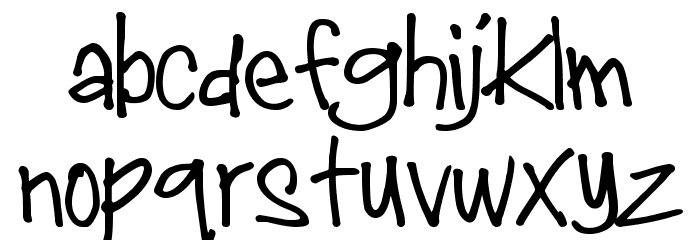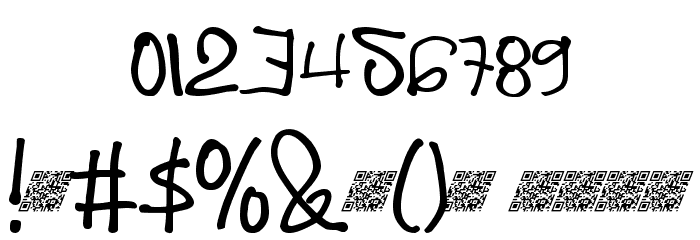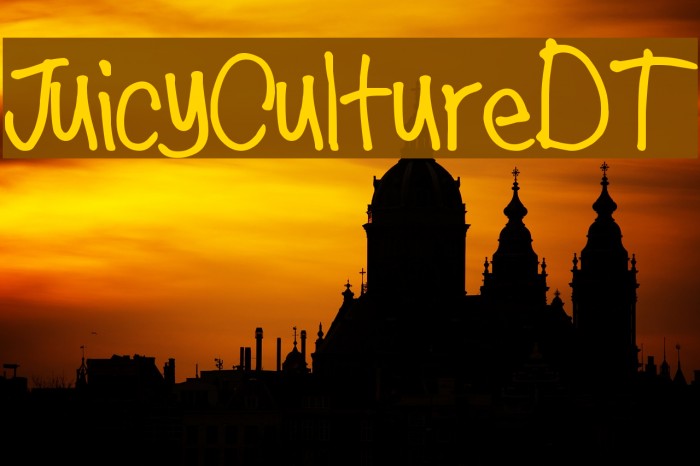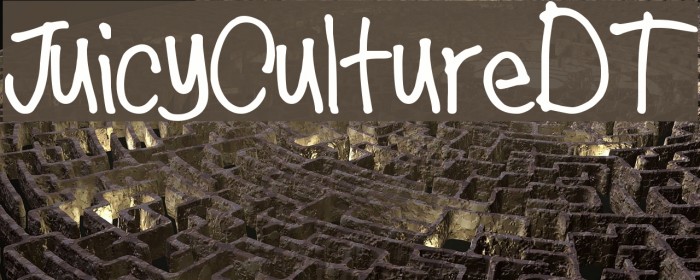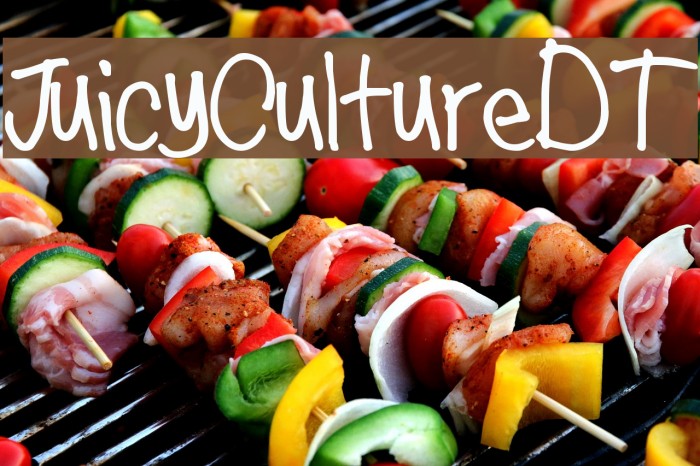
JuicyCultureDT Font
This font exudes a playful and casual vibe, characterized by its handwritten style. The letters are slightly slanted, giving them a dynamic and energetic appearance. The strokes are uneven, adding to the informal and relaxed feel. The uppercase and lowercase letters maintain a consistent style, with rounded edges and a slightly exaggerated height. Numbers and special characters follow the same aesthetic, ensuring a cohesive look across all text elements. This font is perfect for projects that require a personal touch, such as invitations, greeting cards, or creative branding materials.
A playful, handwritten font with a casual and dynamic style.
- Proposed Projects: Ideal for invitations, greeting cards, creative branding, and informal communication.
- Overall Style: Casual, Playful
- Use Case: Headlines, Logos, Informal Text